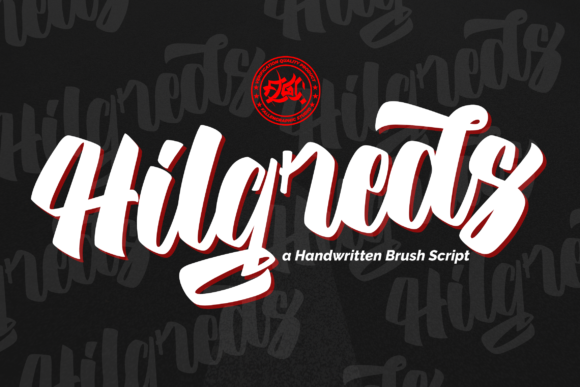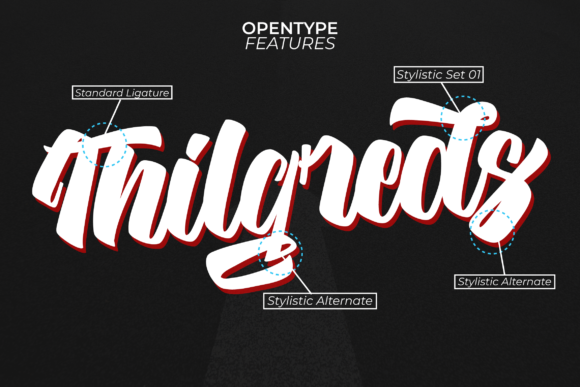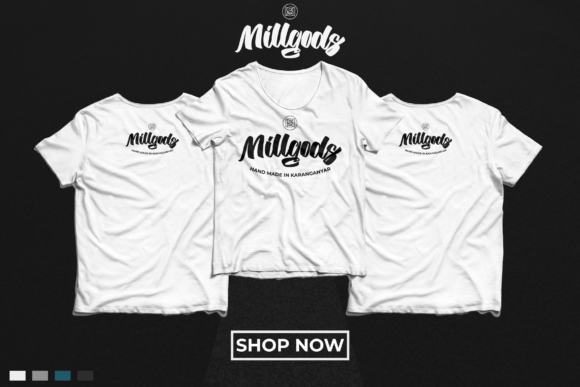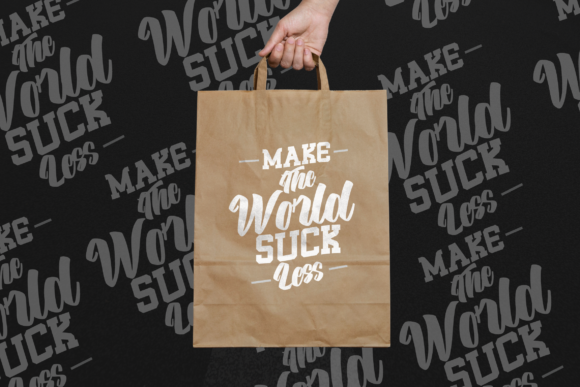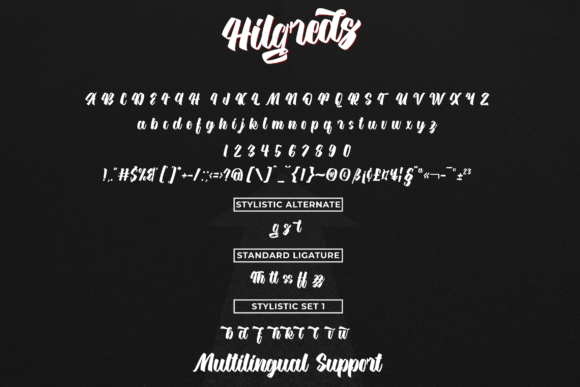
Hilgreds Font
About Hilgreds Font
Hilgreds is a gorgeous script font that will turn any design project into a raw work of art. This unfiltered script will add a personal touch to any creative idea!